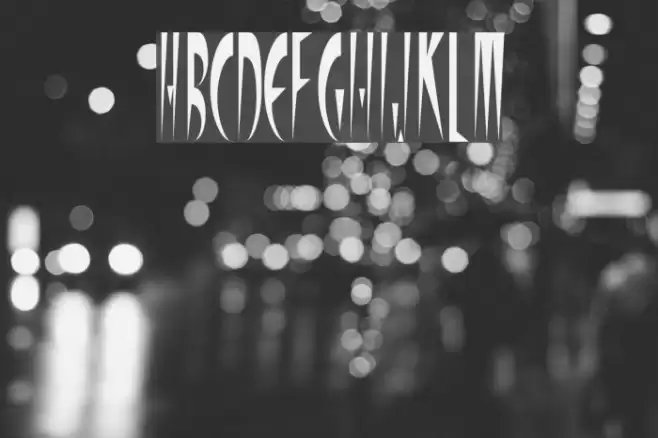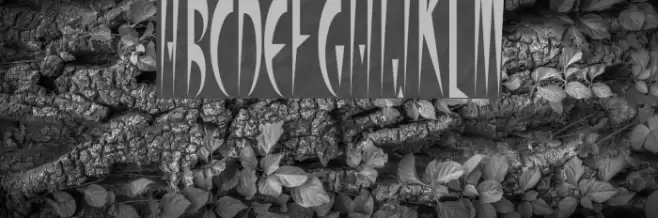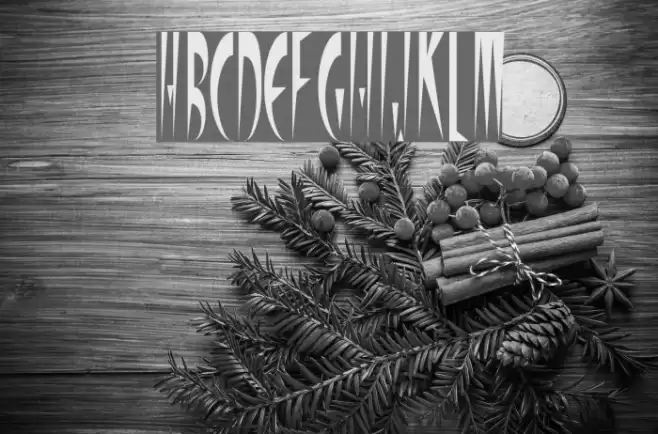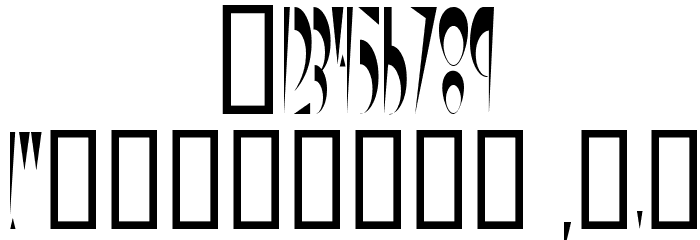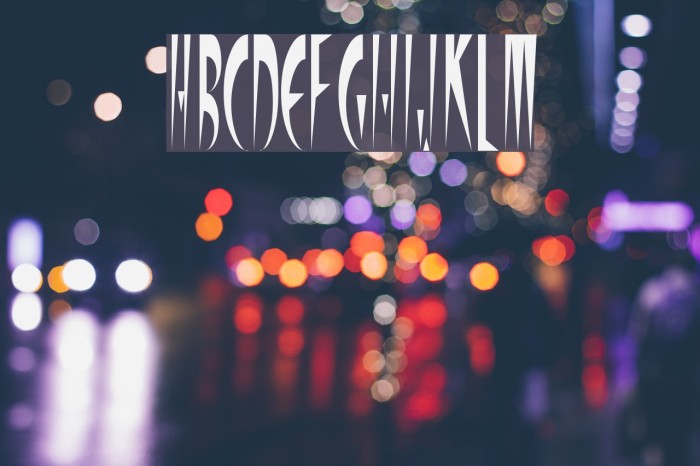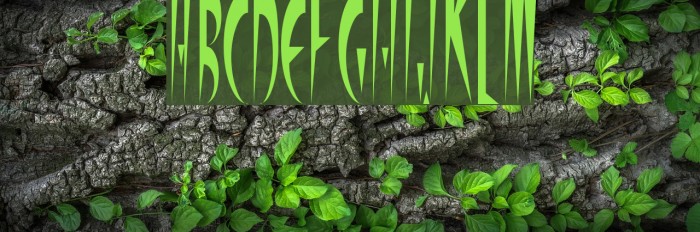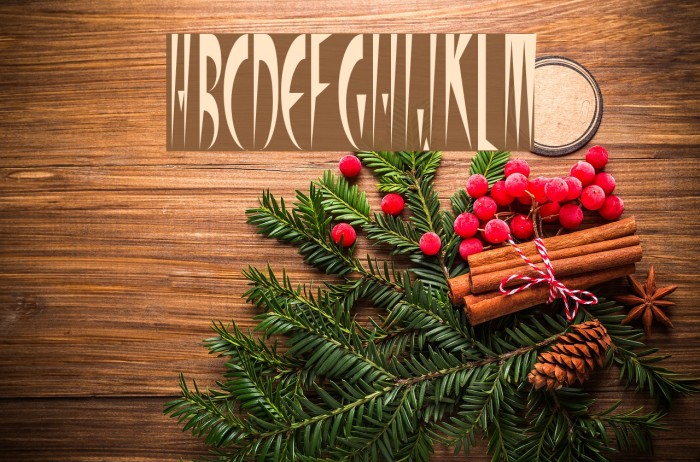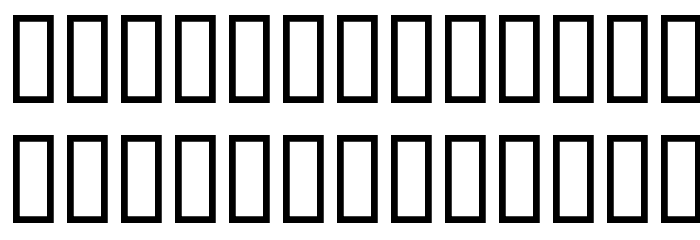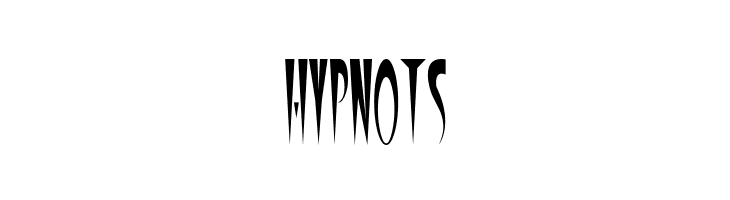
Kris Kris Font
Kris Kris Description
This font exhibits a striking and dramatic style, characterized by sharp, elongated strokes that create a sense of movement and energy. The uppercase letters are particularly bold, with pointed serifs and a dynamic flow that gives each character a unique and edgy appearance. The numbers follow a similar design, maintaining the sharp and angular aesthetic. This font is highly decorative, making it ideal for projects that require a bold and attention-grabbing typeface. The overall impression is one of modernity and innovation, with a touch of avant-garde flair.
A bold, decorative font with sharp, elongated strokes and a dynamic, modern style from Uncategorized fonts.
- Proposed Projects: Ideal for use in posters, album covers, branding for edgy or modern products, and any project requiring a standout, artistic typeface.
- Overall Style: Modern, Decorative